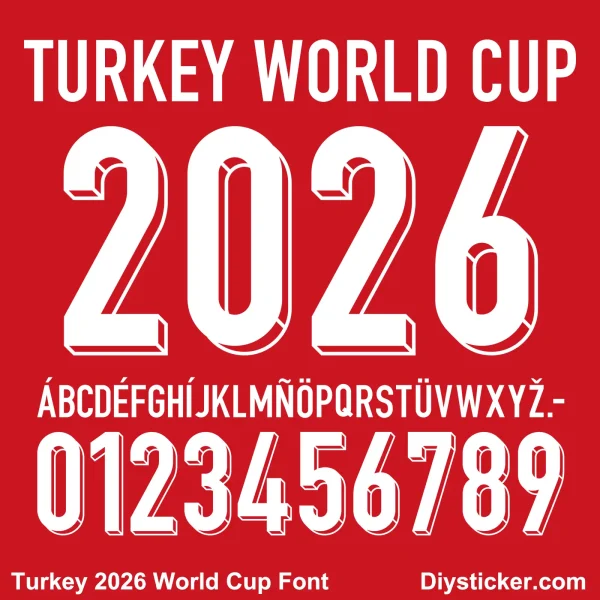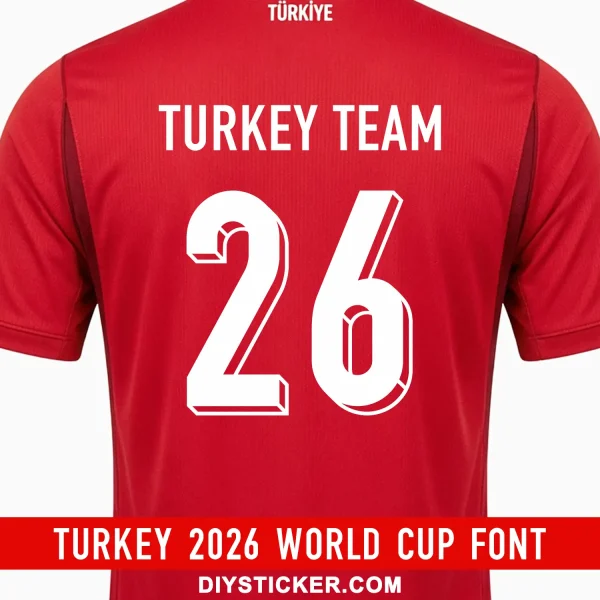
Turkey 2026 World Cup Font & Numbers Vector Kit: Premium UEFA Customization
Upgrade your custom print production with the high-performance Turkey 2026 World Cup font and complete numbers set. Designed to perfectly replicate the striking national team look worn during international qualifiers and world championship stages, this digital toolkit offers unrivaled geometric precision. Whether you are creating a custom name-set for a passionate fan or compiling massive promotional sports signage, our vector files ensure factory-fresh alignment. Discover more iconic international tournament designs by exploring our curated World Cup 2026 Fonts repository.
Aesthetic Design Breakdown & Typography Engineering
The Turkey 2026 World Cup font features a tall, condensed athletic design crafted to stand out perfectly on the pitch. Distinctive visual selling points include:
3D Dimensional Block Shadow Geometry: The numbers feature a bold, slightly sculpted structure accented by an angular right-side drop-shadow outline, adding depth and a heavy spatial presence to the kit.
Clean Solid Core and High Contrast: Engineered with an open, crisp white interior face that pops vibrantly against the team’s historic shift back to a bold red foundation.
Uniform Vertical Alignment: Built with sharp chamfered lines and standard geometric corners, maximizing visibility for both close-up broadcast cameras and stadium spectators.